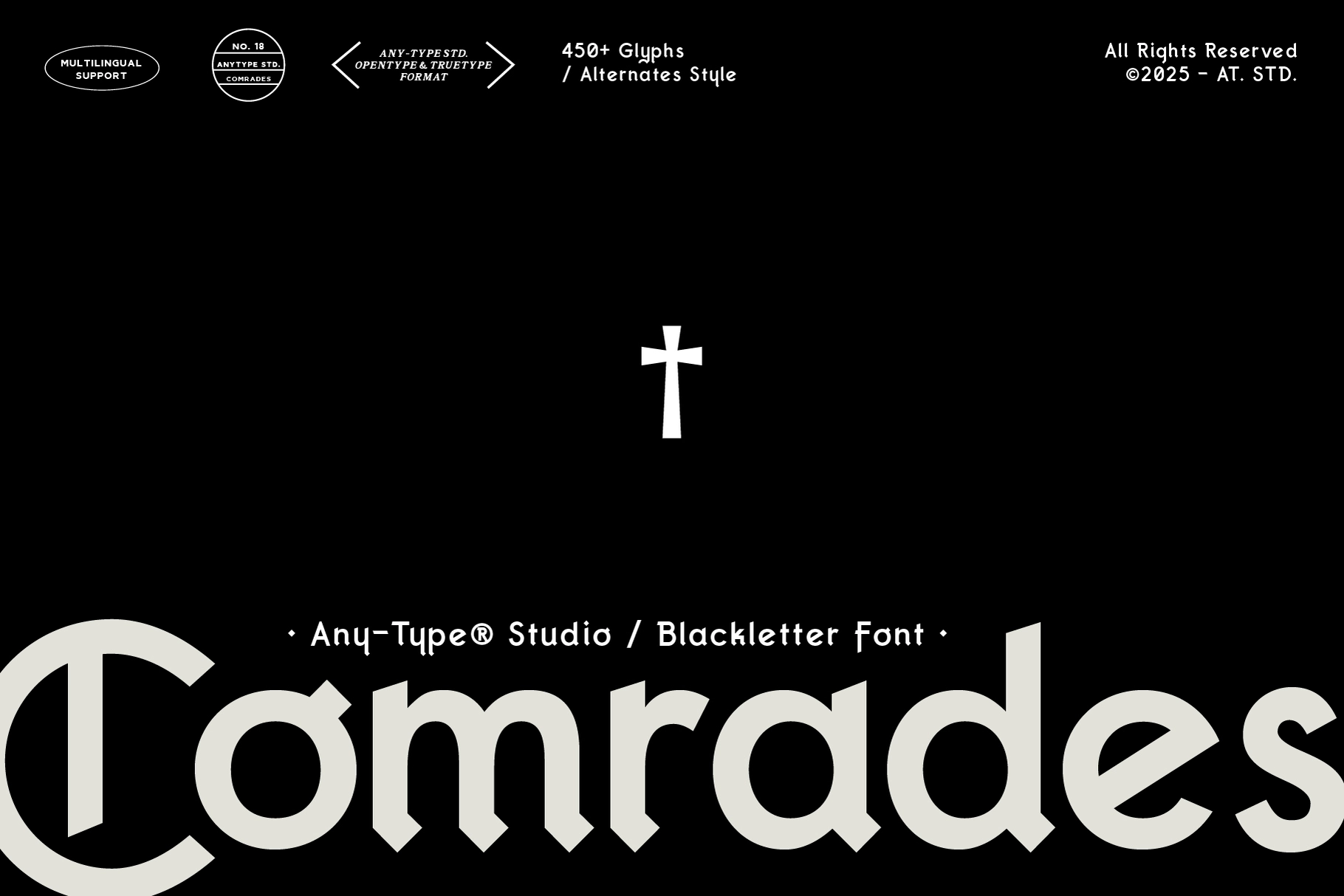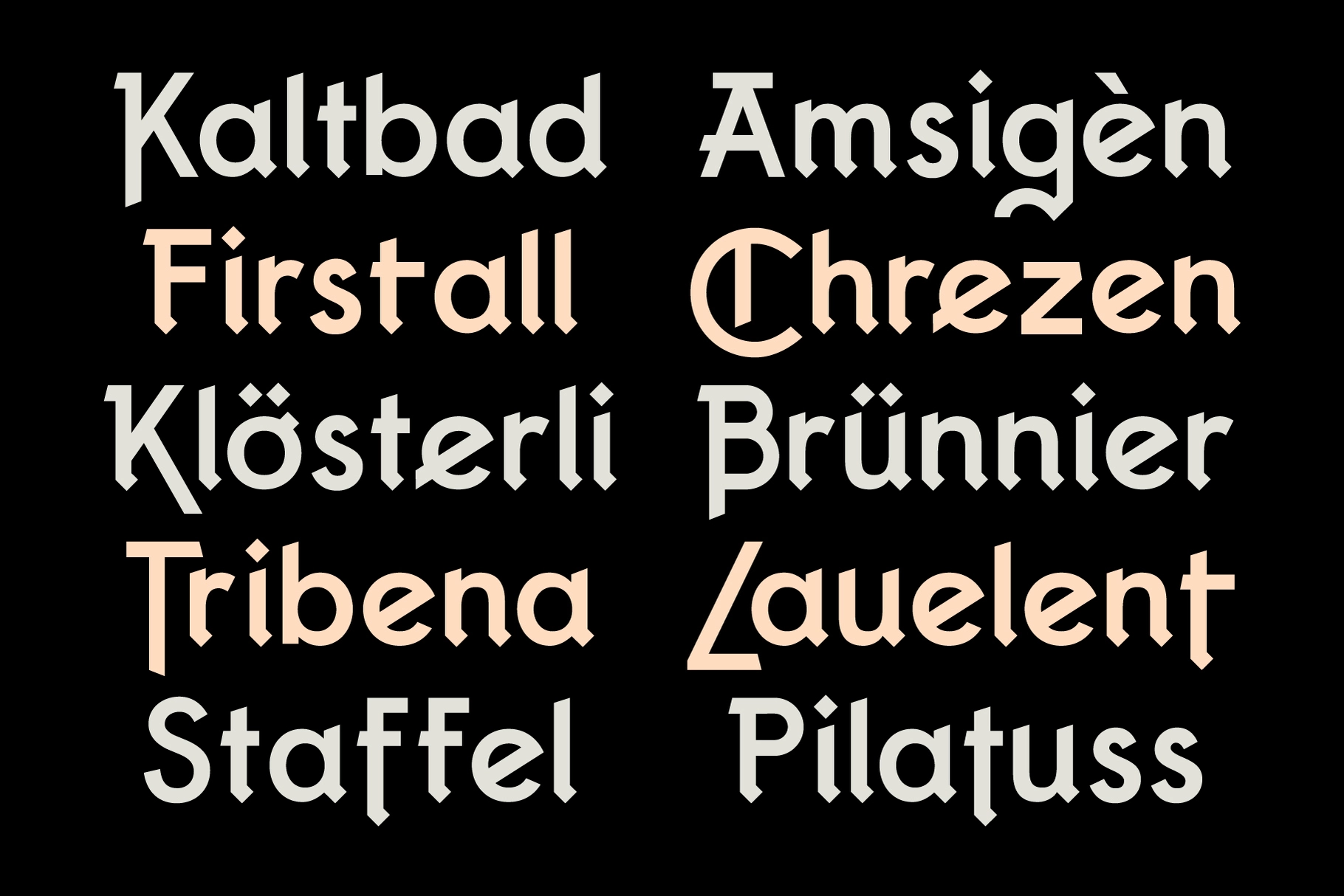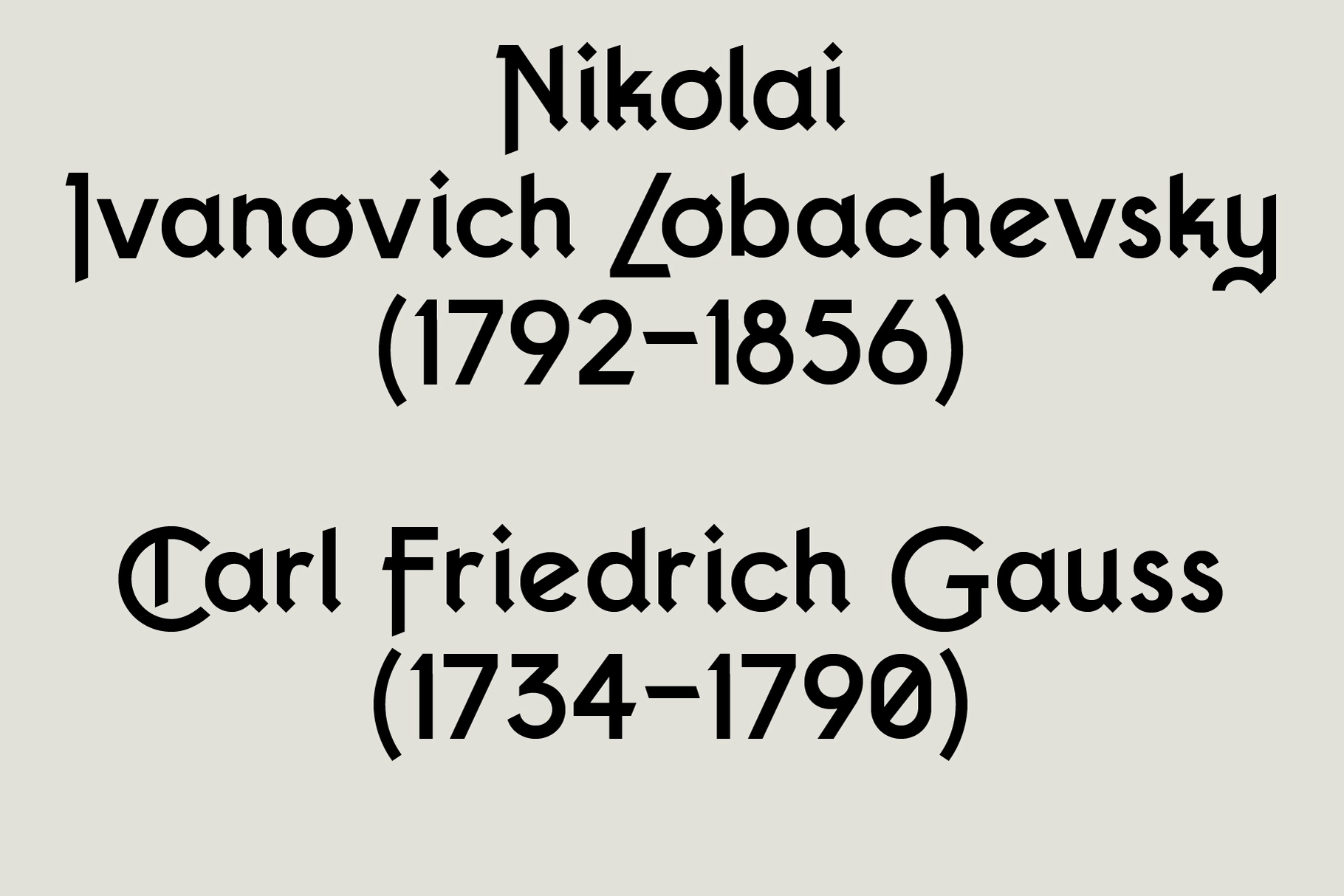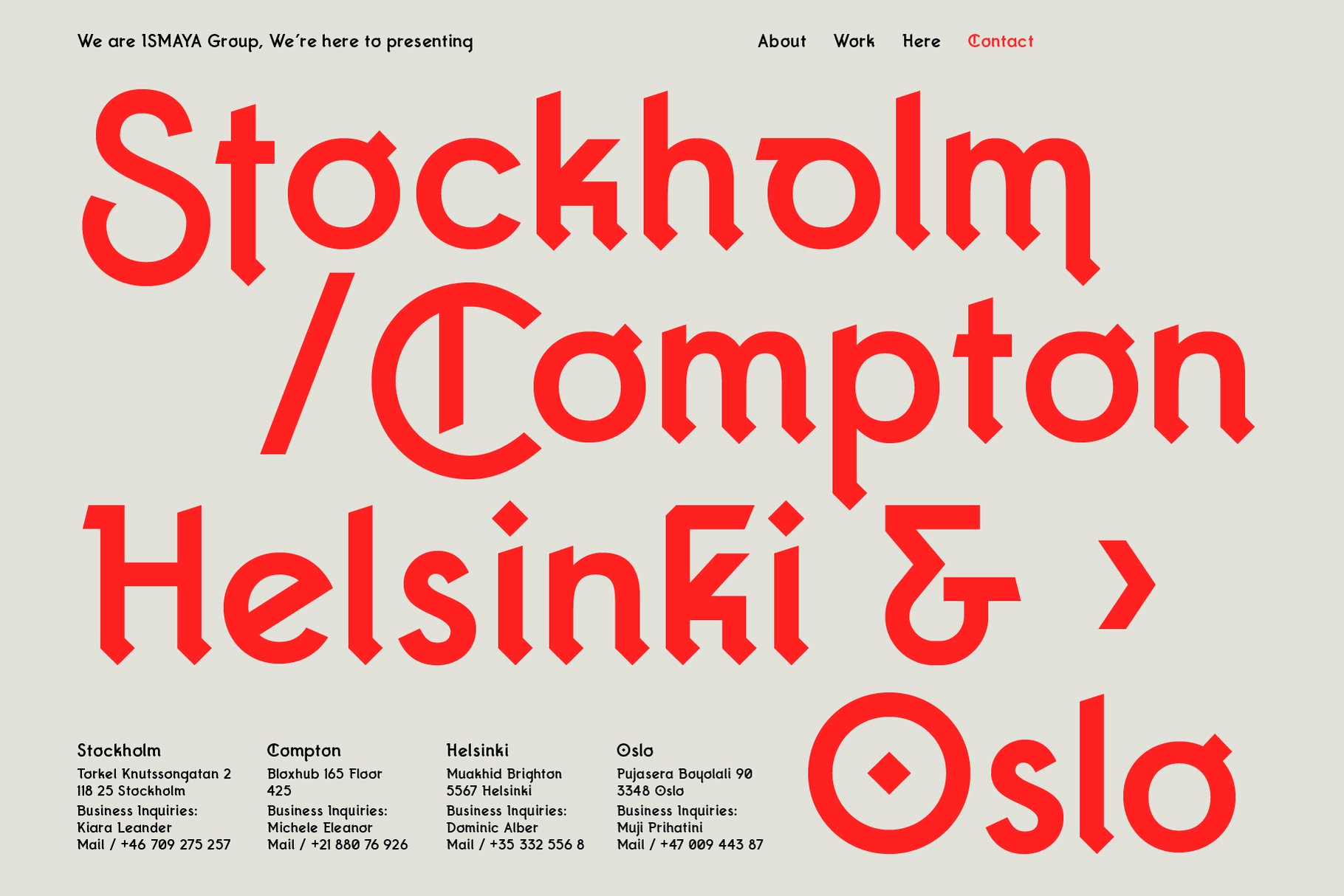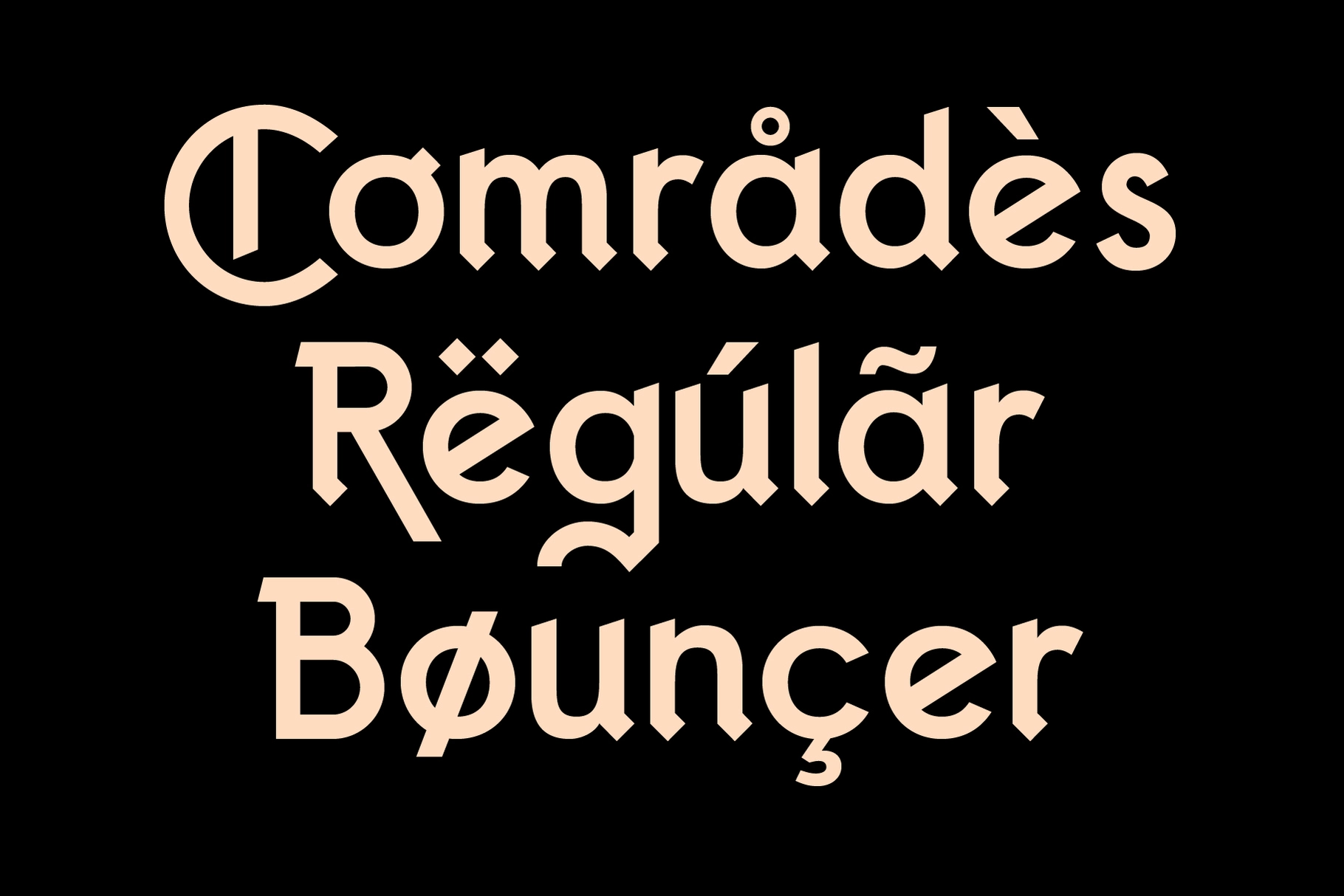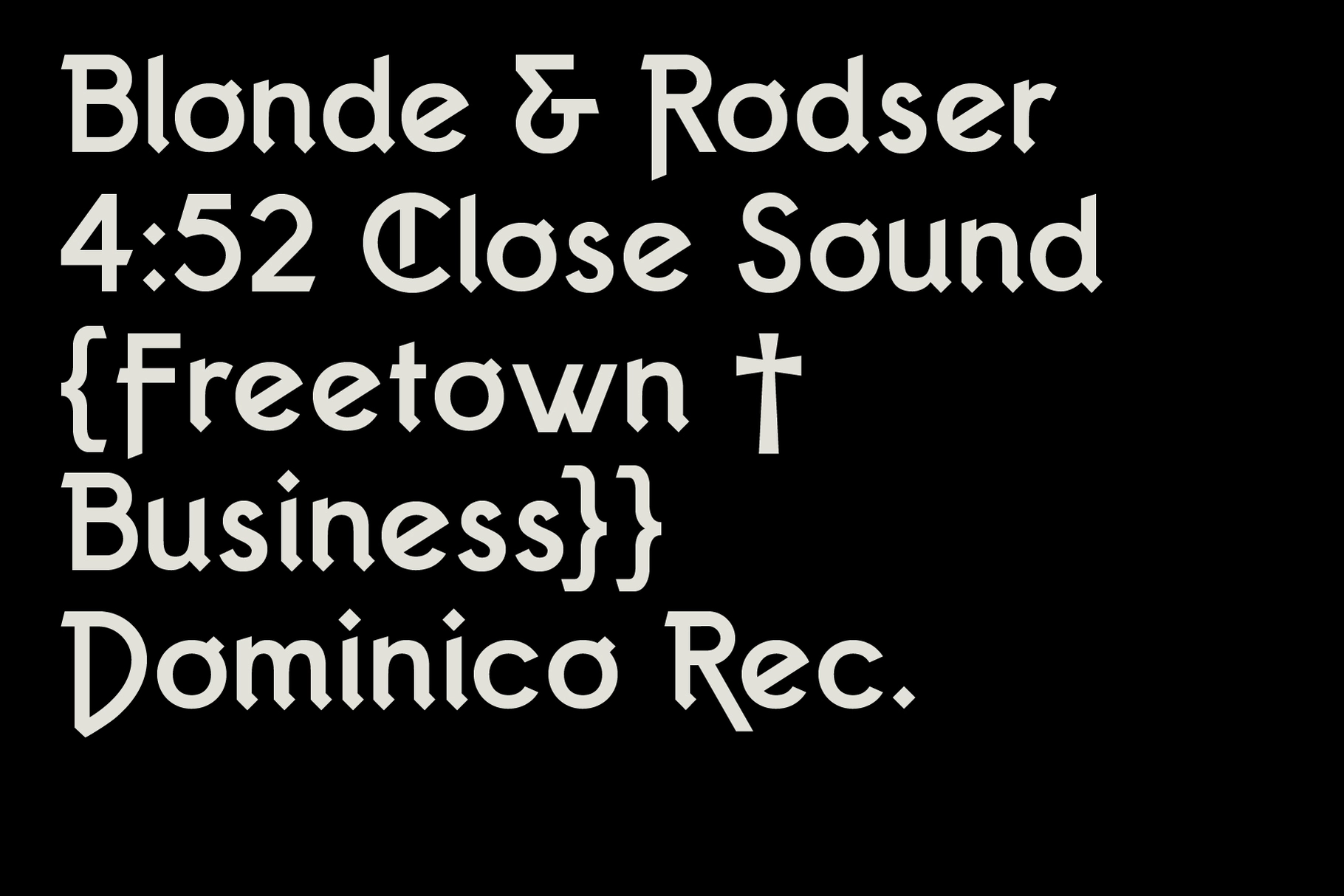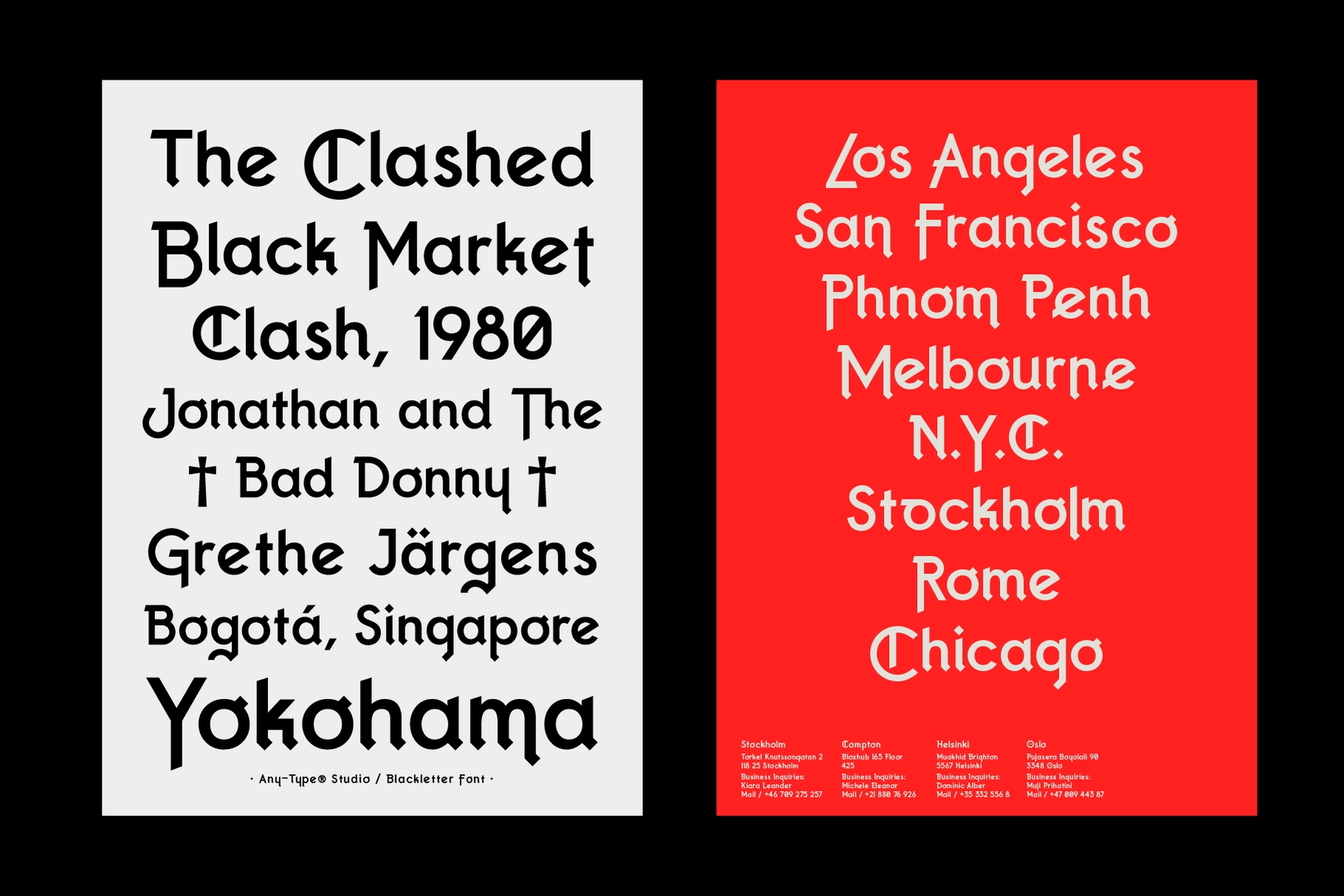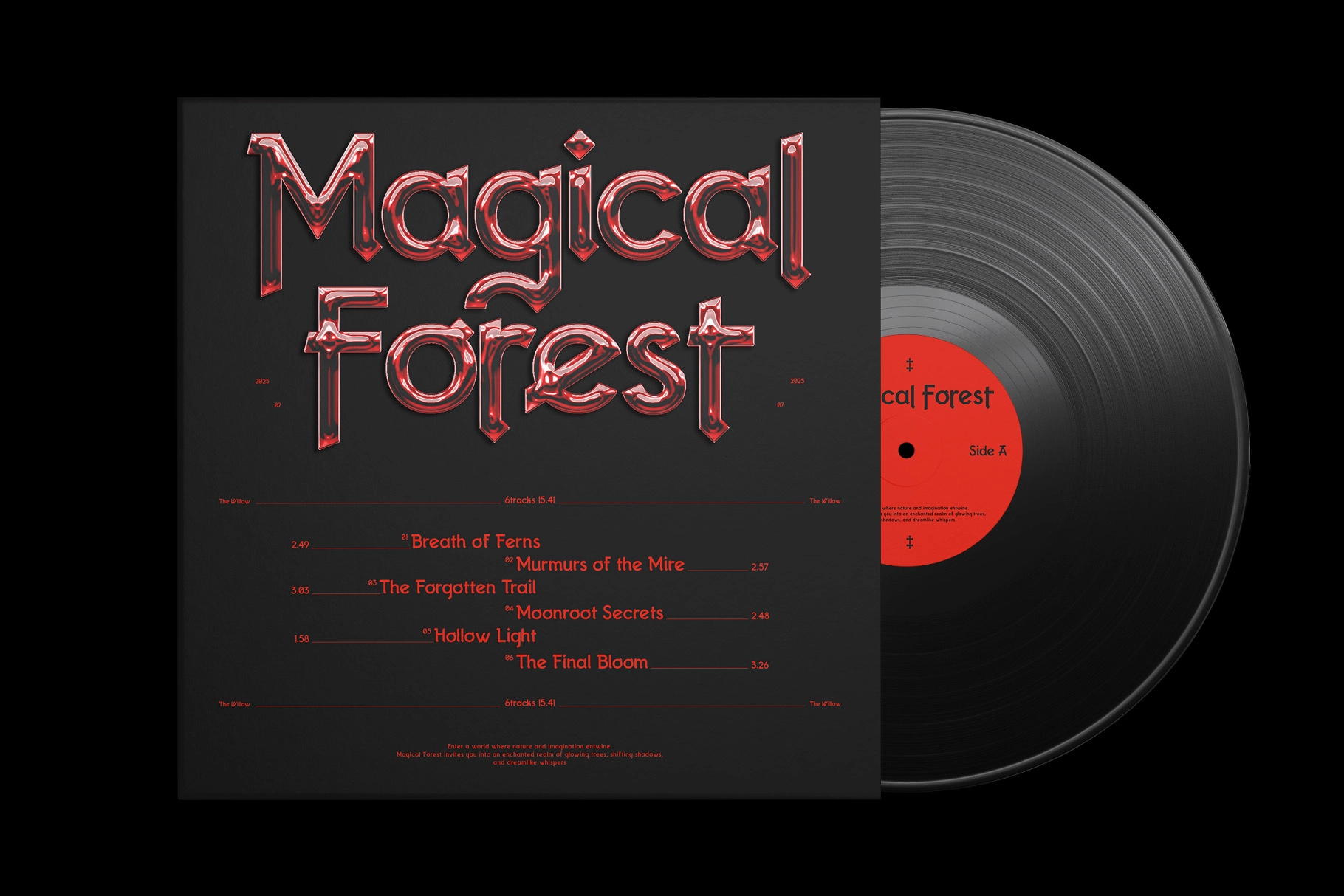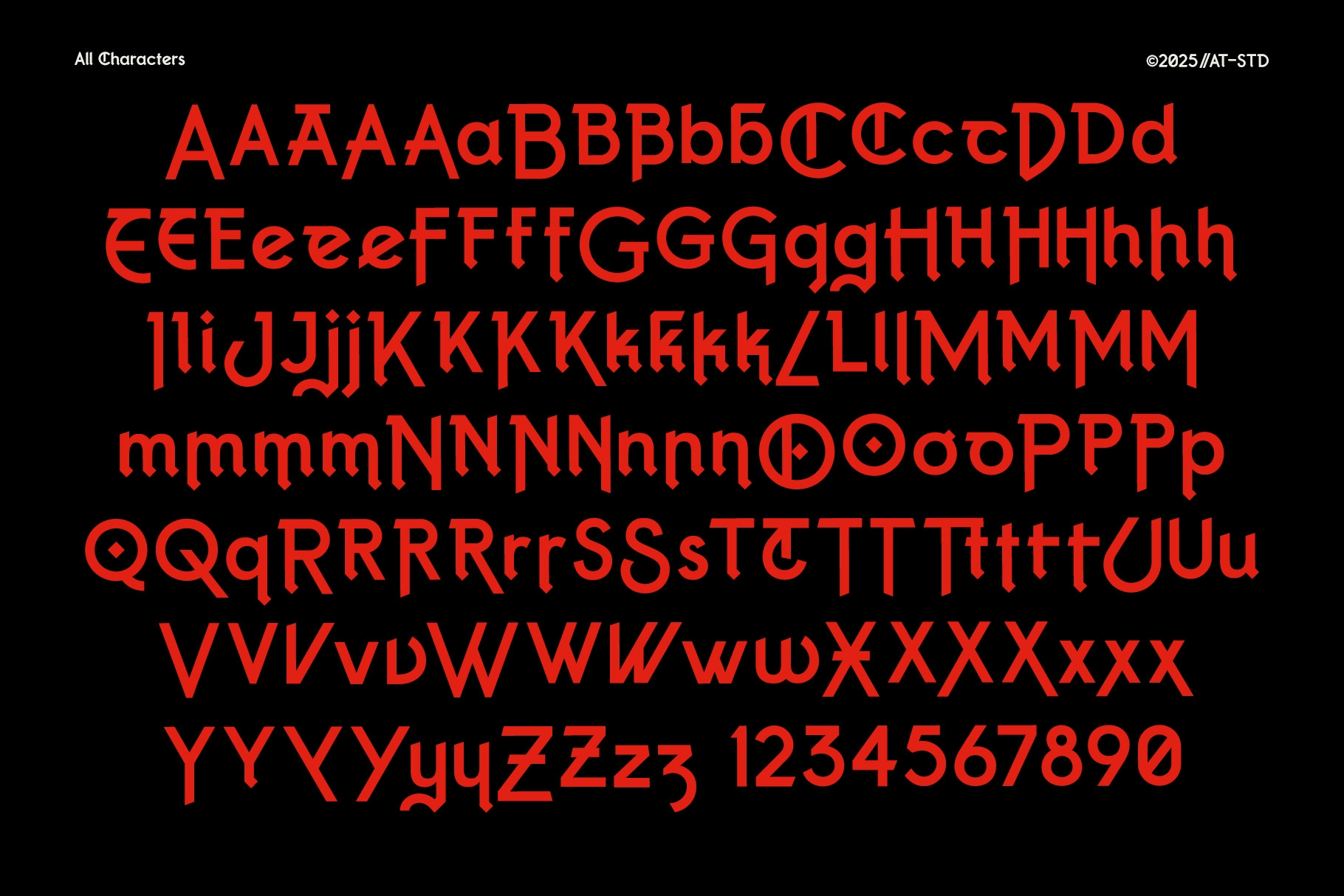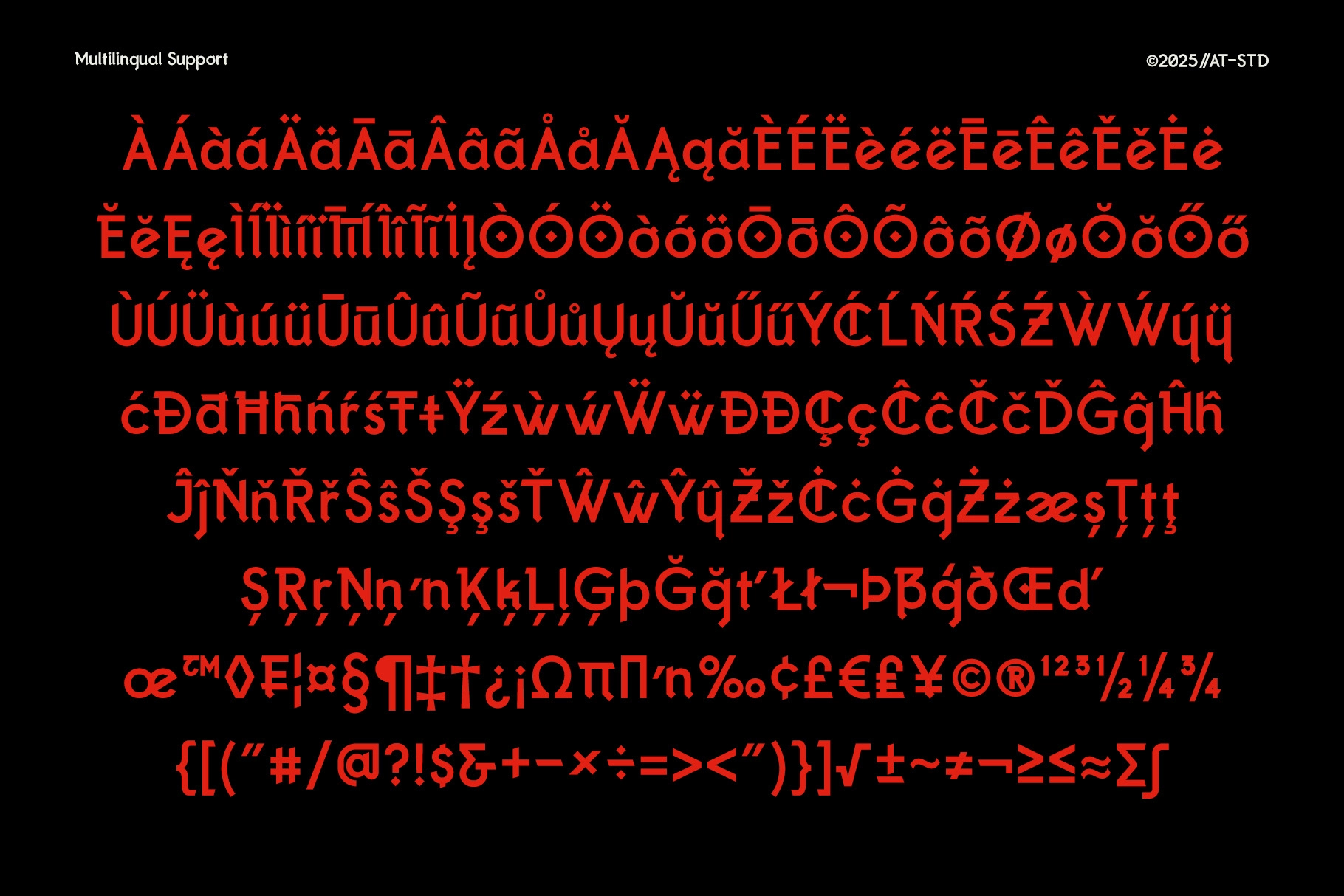
Comrades Blackletter Font
Comrades cuts a distinctive figure: sharp at the joints, smooth at the curves, and stripped of excess ornamentation. The letterforms lean into a gothic construction, making it ideal for stylized titling. The balance of pointed terminals and geometric flow gives it a ceremonial quality that pairs well with metal-inspired or high-gloss chrome effects.
This blackletter type thrives in settings where theatrics and texture are central β vinyl covers, stage backdrops, tour merch, gothic editorials, fantasy titles, band logos, tattoo branding, heavy game UI, and billboard campaigns. Once paired with reflective, embossed, or liquid-metal treatments, the letterforms take on a sculptural presence, both dramatic and legible.
- over 450 glyphs;
- multilingual support;
- extended set of alternate characters.